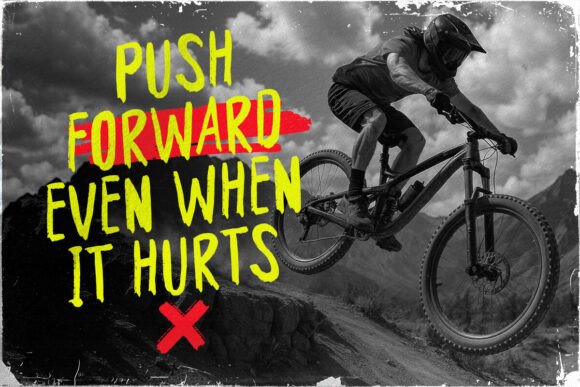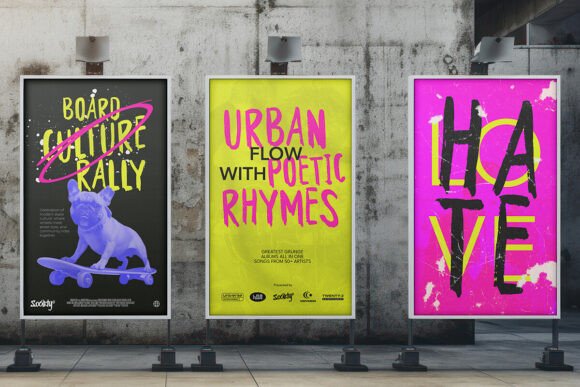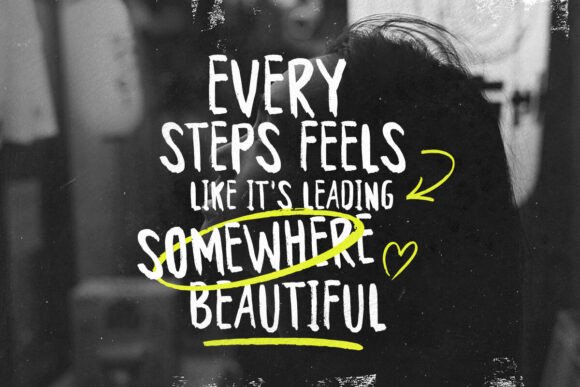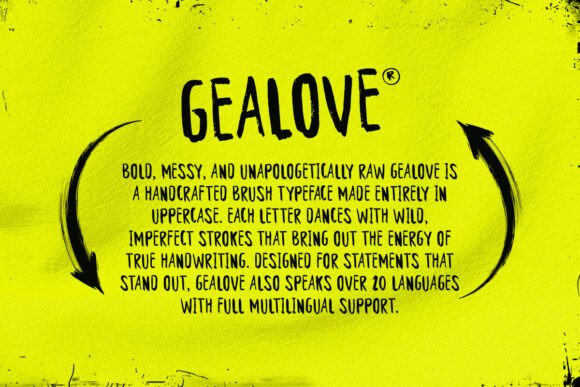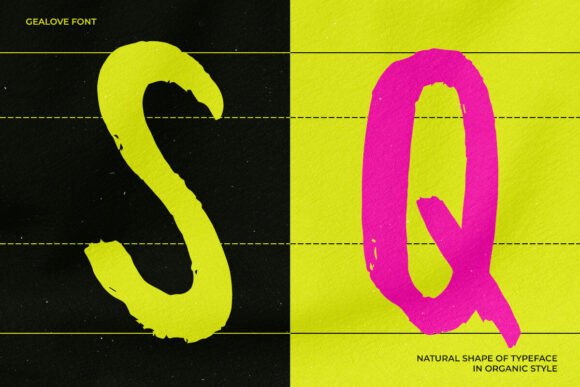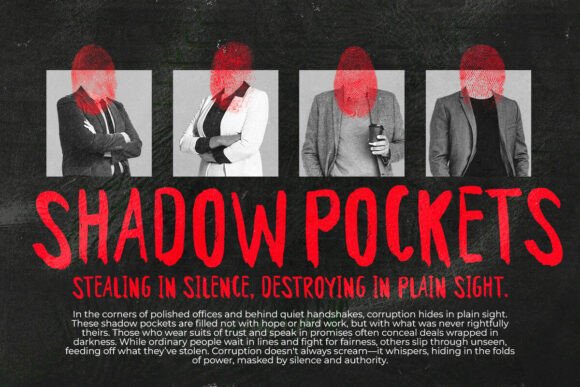
Unleash Your Creativity with Gealove Font: The Ultimate Choice for Rebels and Nonconformists
Are you tired of using the same old fonts that blend in with the crowd? Do you want to add a touch of rebellion and self-expression to your designs? Look no further than Gealove Font, a bold uppercase brush font that captures the raw energy of nonconformity. With its messy natural strokes and edgy hand-drawn style, Gealove is the perfect choice for designers and crafters who dare to be different.
The Power of Gealove Font
Gealove Font is more than just a typeface – it’s a statement. Its bold, uppercase letters are hand-drawn with a brush, giving it a unique, organic feel that’s perfect for creating eye-catching designs. The font’s messy, natural strokes add a touch of imperfection, making it look like it was drawn by hand. This level of authenticity is hard to find in digital fonts, which is what sets Gealove apart from the rest.
Perfect for Bold Designs
Gealove Font is made for bold poster designs, underground band branding, album covers, and anything that dares to be different. Its edgy style and raw energy make it the perfect choice for designers who want to create something that stands out from the crowd. Whether you’re designing a poster for a music festival, a logo for a punk band, or a flyer for a art exhibition, Gealove Font is the perfect choice.
Key Features of Gealove Font
- Bold Uppercase Letters: Gealove Font features bold, uppercase letters that are perfect for creating eye-catching designs.
- Hand-Drawn Style: The font’s hand-drawn style gives it a unique, organic feel that’s perfect for creating authentic designs.
- Messy Natural Strokes: The font’s messy, natural strokes add a touch of imperfection, making it look like it was drawn by hand.
- Edgy Style: Gealove Font’s edgy style makes it perfect for designing bold, underground, and nonconformist designs.
Gealove Font is perfect for designers and crafters who want to add a touch of rebellion and self-expression to their designs. Here are a few ideas to get you started:
- Music Festival Posters: Use Gealove Font to create eye-catching posters for music festivals and concerts.
- Underground Band Branding: Create bold, edgy logos for underground bands and musicians.
- Album Covers: Design album covers that stand out from the crowd with Gealove Font.
- Art Exhibition Flyers: Create flyers for art exhibitions that showcase your unique style and creativity.
Gealove Font is a powerful typeface that’s perfect for designers and crafters who want to add a touch of rebellion and self-expression to their designs. With its bold uppercase letters, hand-drawn style, and messy natural strokes, Gealove Font is the ultimate choice for creating eye-catching designs that stand out from the crowd. So why settle for boring, generic fonts when you can unleash your creativity with Gealove Font?